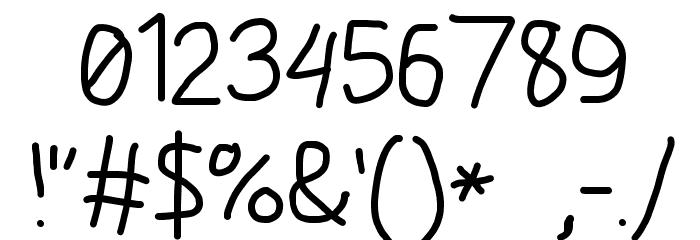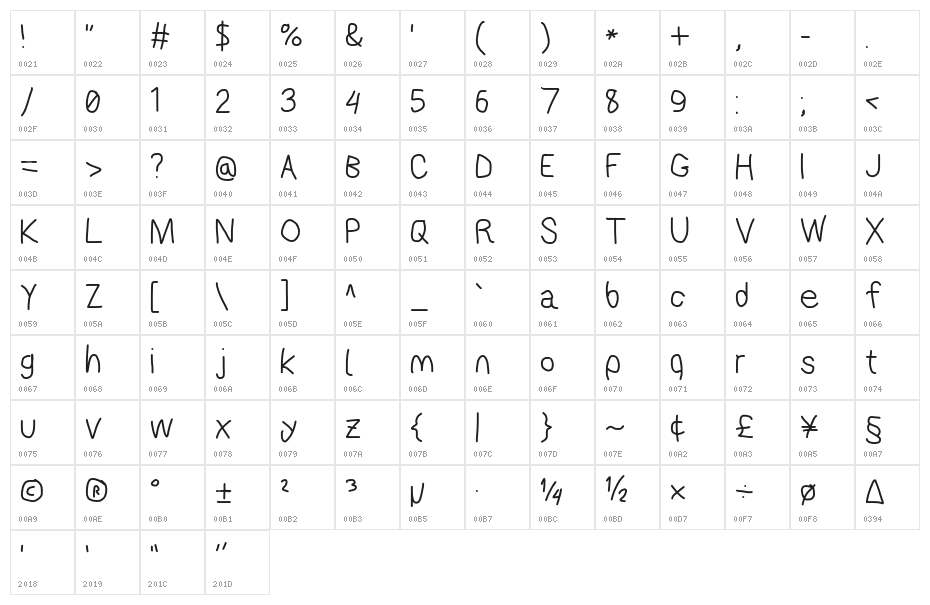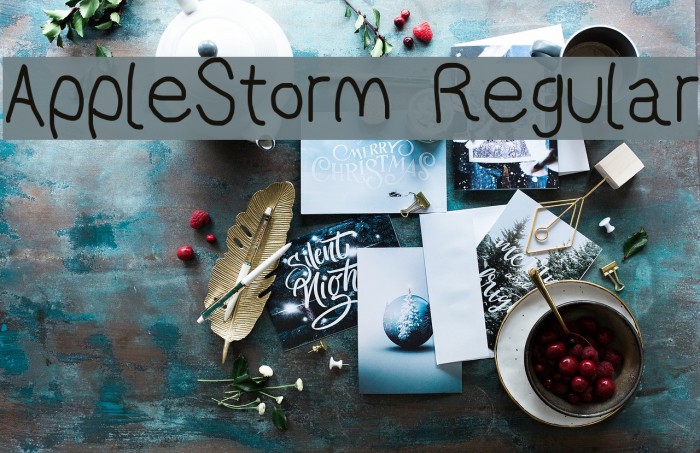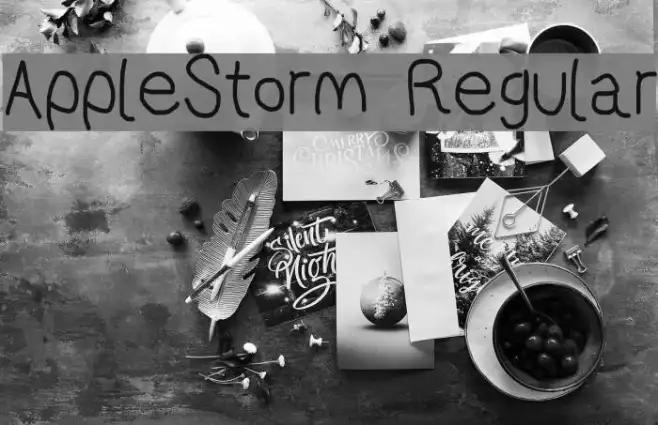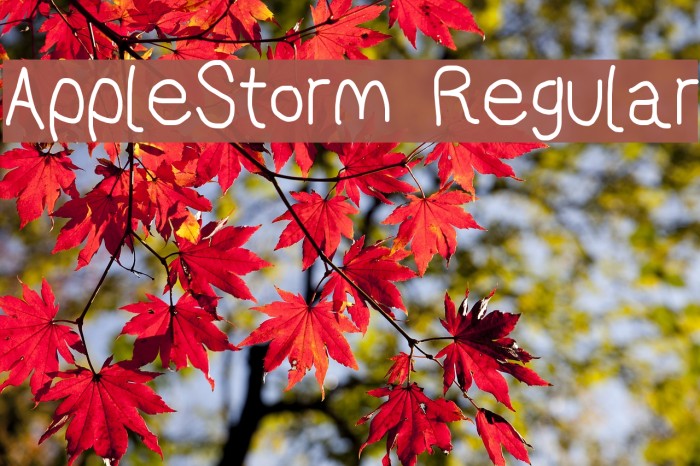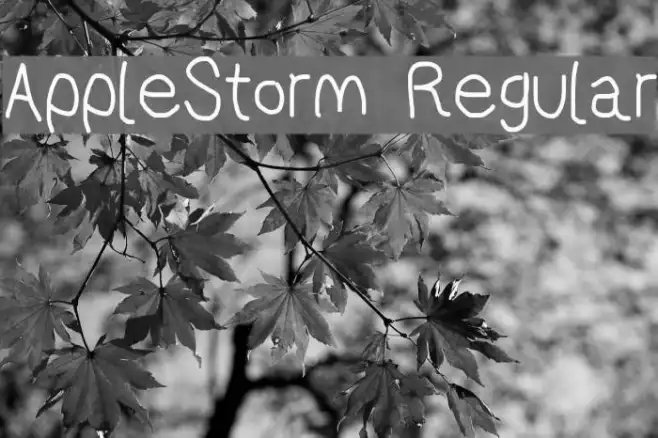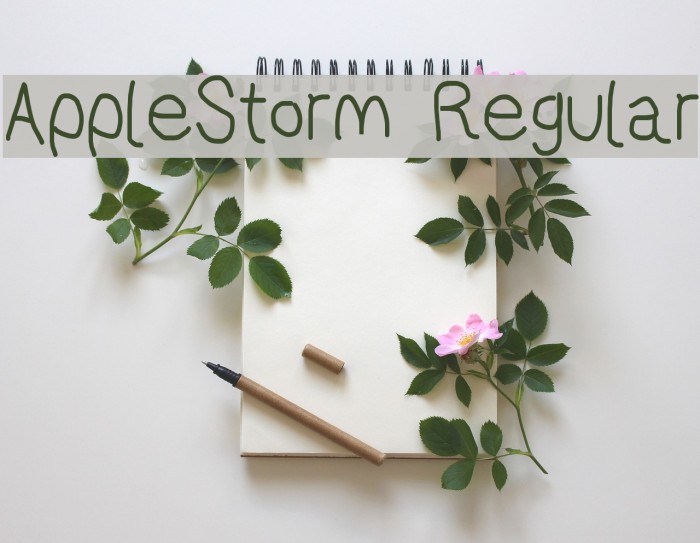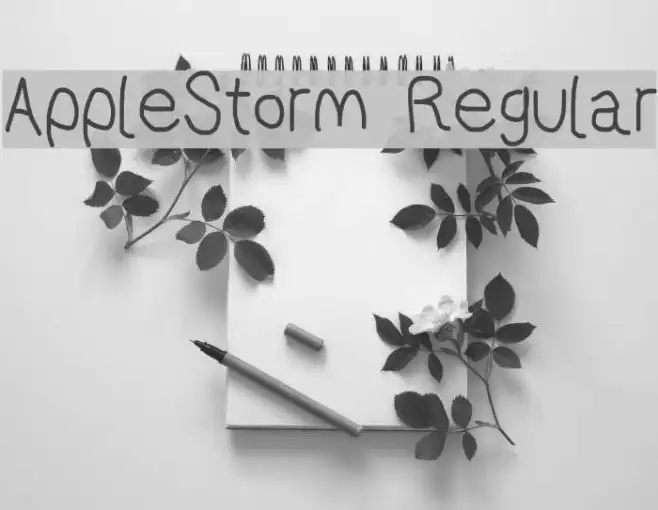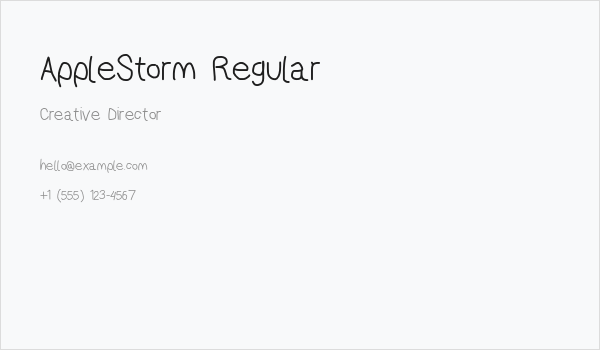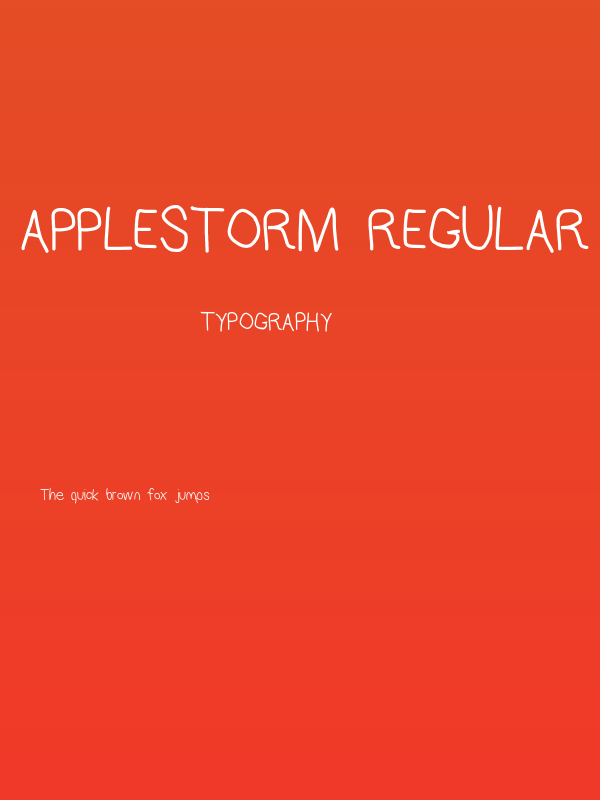
AppleStorm Regular Font
AppleStorm Regular Description
This font features a playful, handwritten style with a casual and informal appearance. The characters are slightly irregular, giving it a whimsical and friendly feel. The strokes are consistent in thickness, providing a uniform look across all characters. The uppercase and lowercase letters are well-balanced, and the numbers maintain the same playful aesthetic. Special characters are included, matching the overall style. This font is ideal for projects that require a personal touch, such as invitations, greeting cards, or children's book covers.
| Proposed Projects | Ideal for invitations, greeting cards, children's books, and casual branding. |